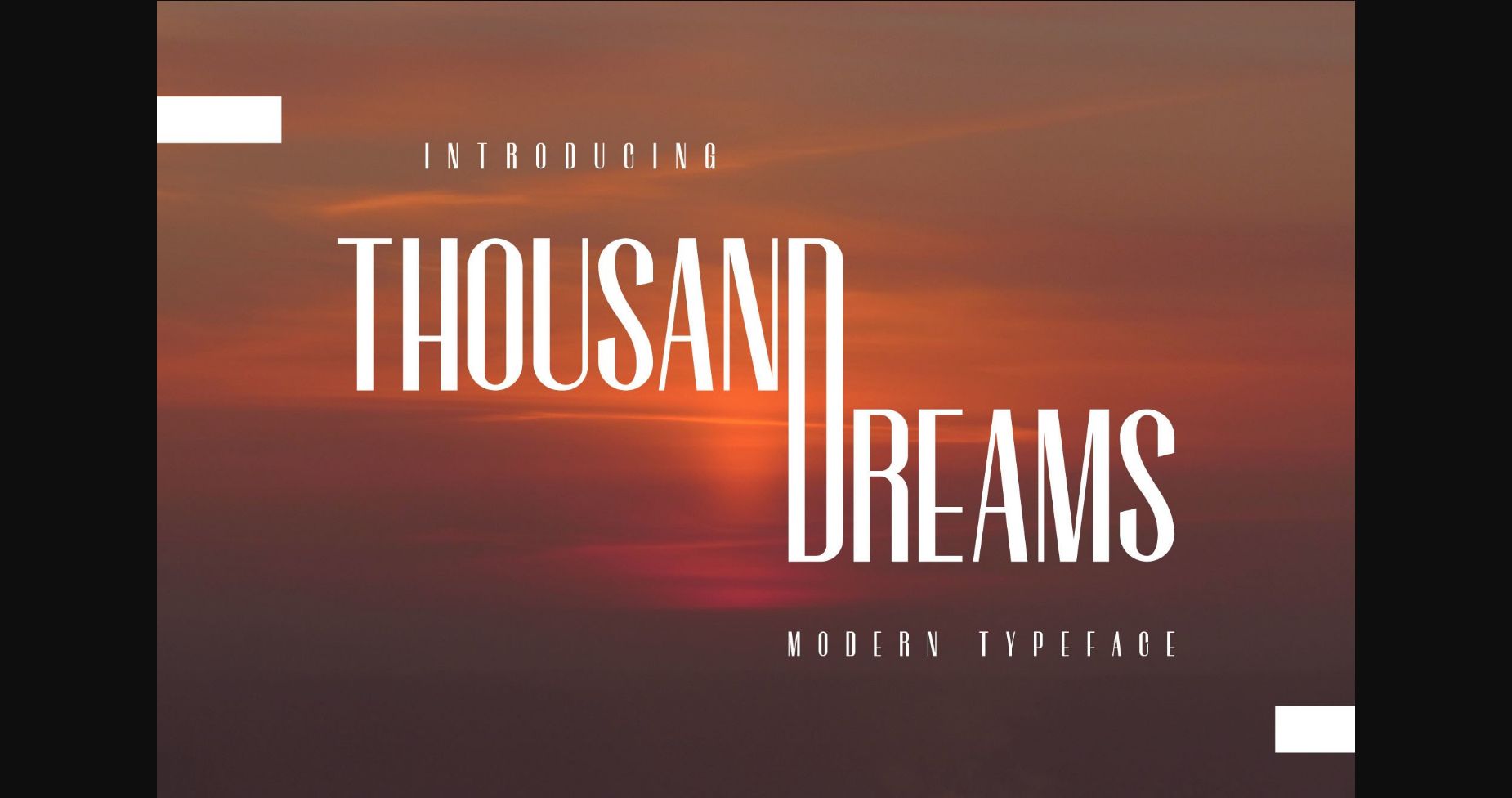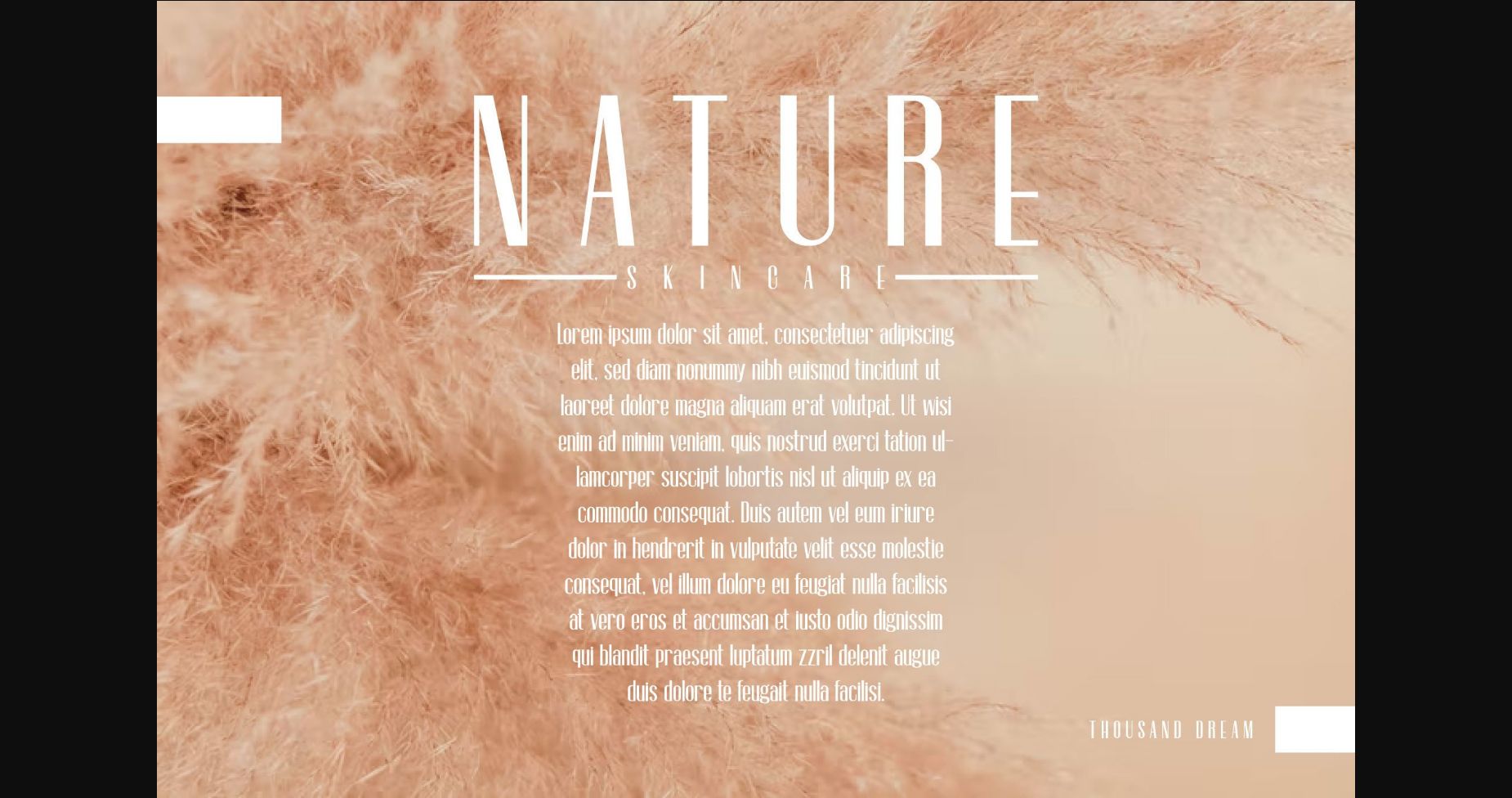
About Thousand Dreams Font
Thousand Dreams is a modern and stylish sans serif font masterfully crafted to become a true favorite. Contemporary and fresh, it is perfect for any design you wish to create. Add it to your creative projects and make them outstanding!